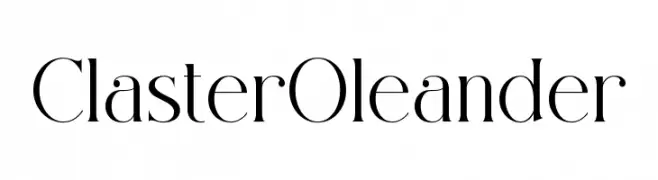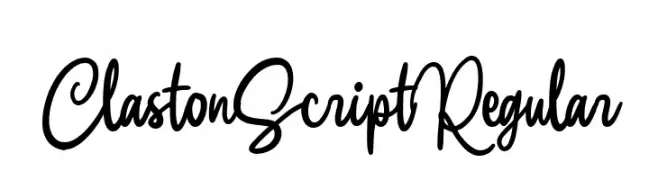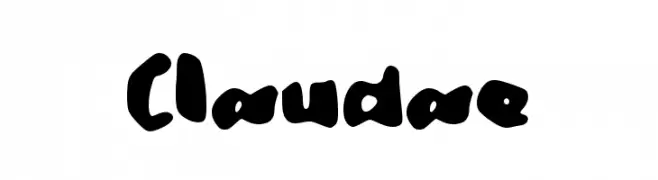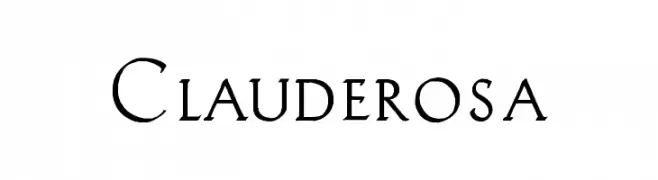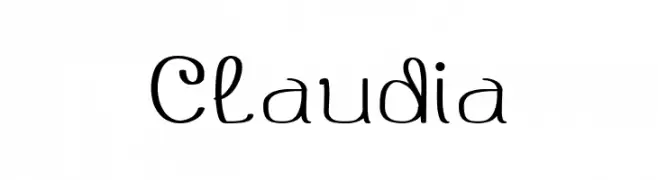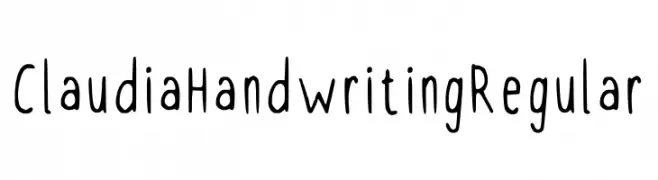
A high-contrast, elegant serif font with sharp serifs and a modern aesthetic.
A flowing, cursive script font with elegant, smooth curves.
A dynamic, handwritten script font with fluid, expressive strokes.
A casual handwritten font with smooth, flowing strokes.
A playful, bold font with rounded, irregular shapes and a whimsical style.
A classic serif font with elegant strokes and medium contrast.
A playful, handwritten font with a whimsical and informal style.
An elegant script font with flowing, ornate letterforms and intricate swashes.
Casual handwritten font with a playful style.